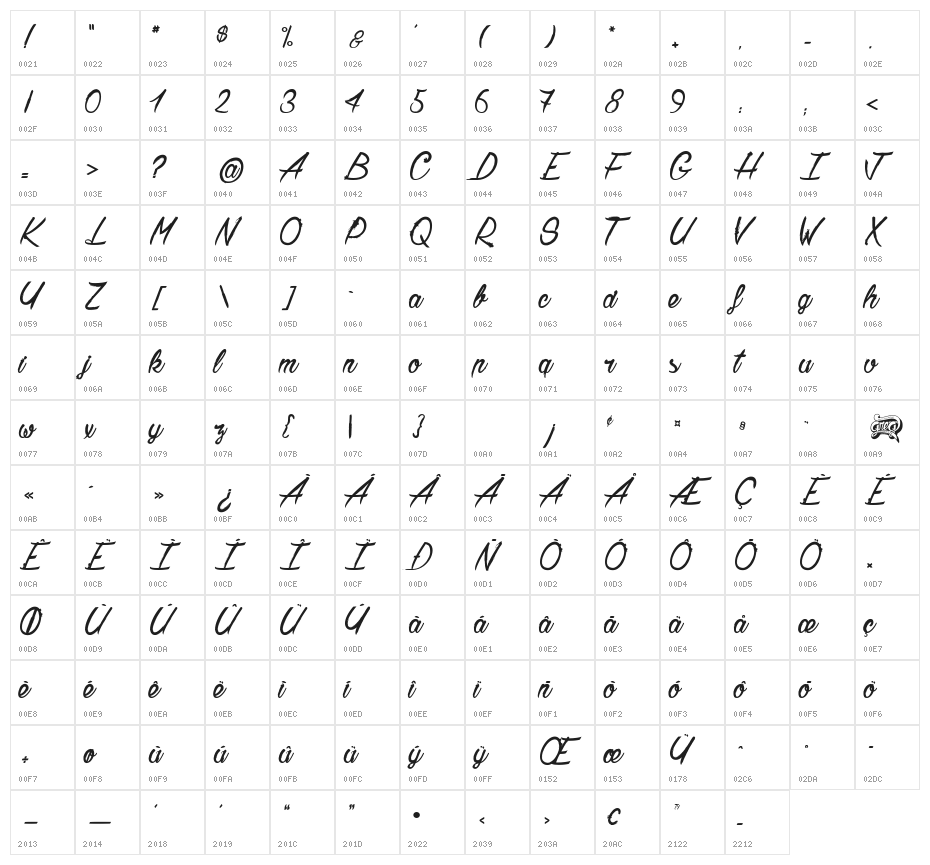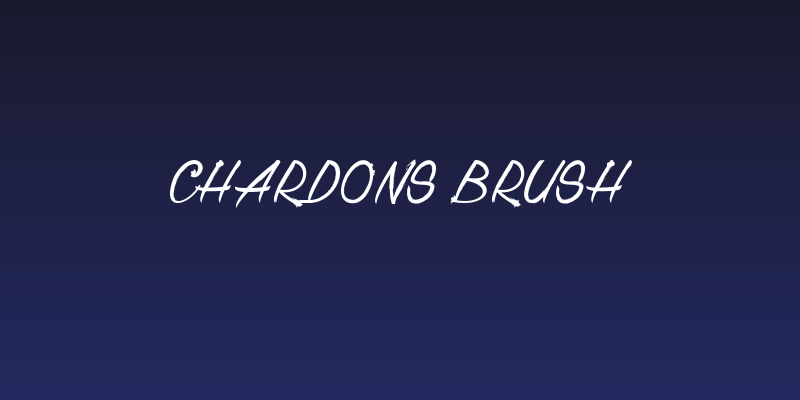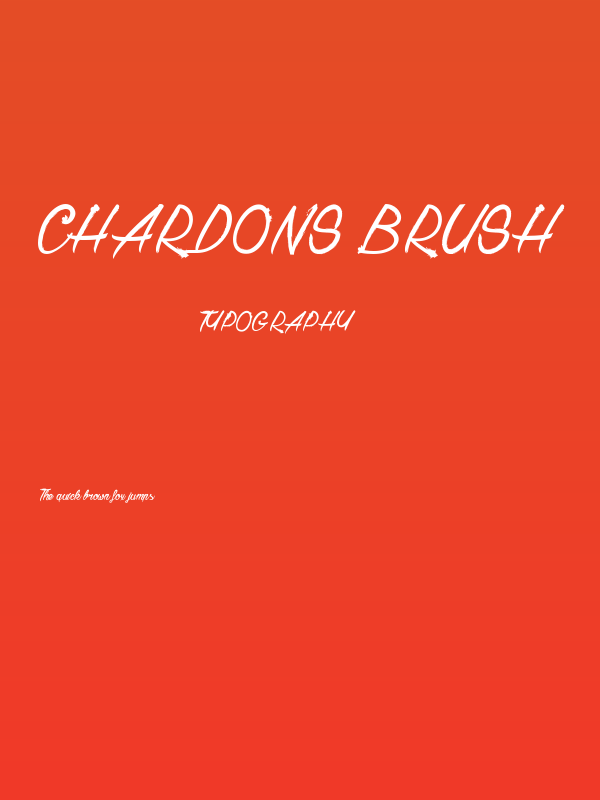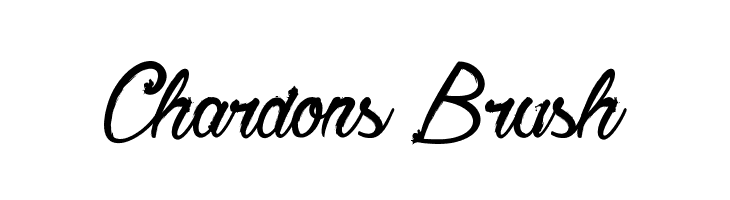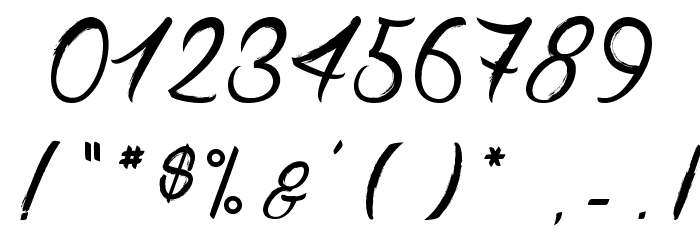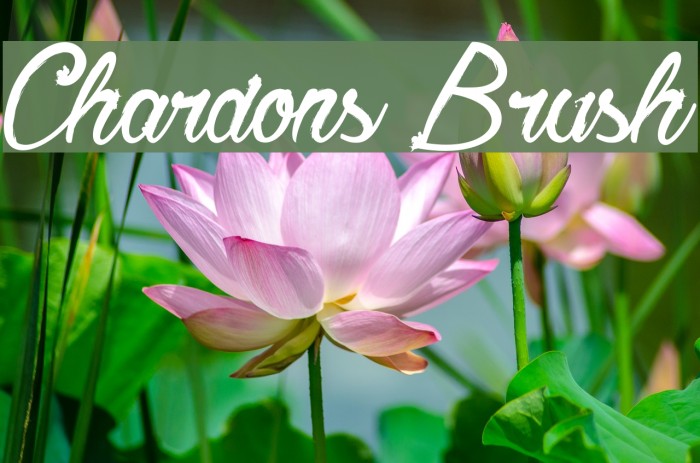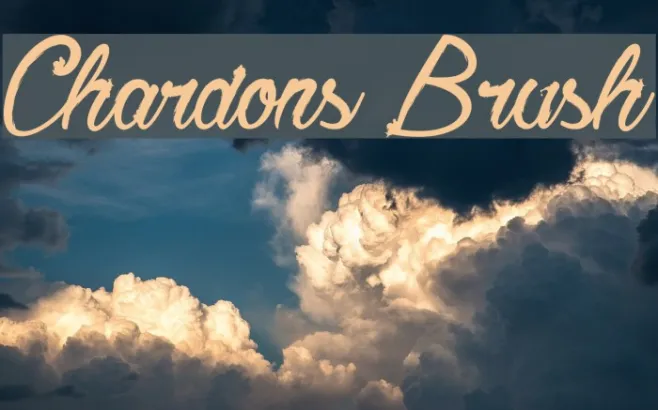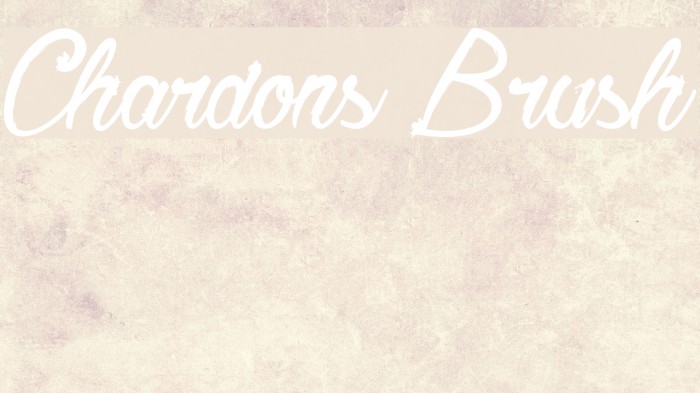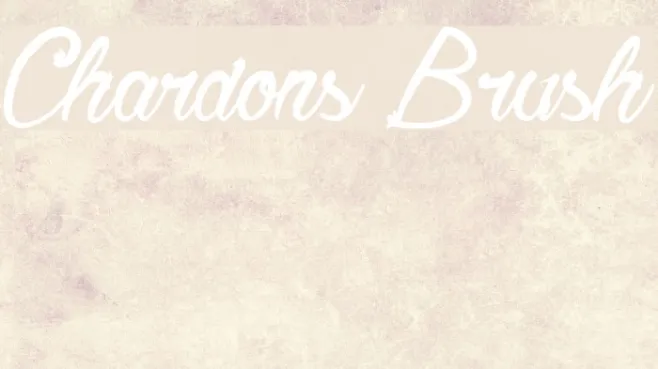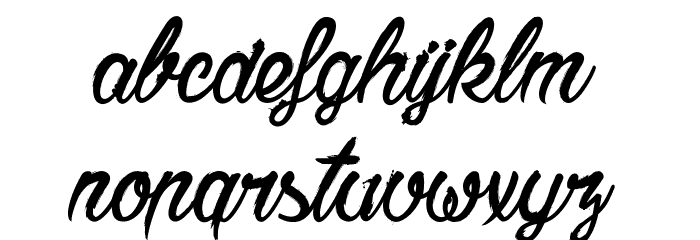
Chardons Brush Font
Chardons Brush Description
This font features a dynamic and expressive brush style, characterized by its fluid and cursive strokes. The letters exhibit a natural flow, with varying thickness that adds a sense of movement and energy. The uppercase letters are bold and impactful, while the lowercase letters maintain a consistent rhythm, enhancing readability. The numerals are clear and distinct, complementing the overall aesthetic. Special characters are integrated seamlessly, maintaining the font's artistic flair. This font is ideal for projects that require a personal touch, such as invitations, branding, and artistic designs.
| Use Case | Logos, Headlines, Artistic designs |
| Proposed Projects | Ideal for invitations, branding, artistic designs, and any project needing a personal touch. |